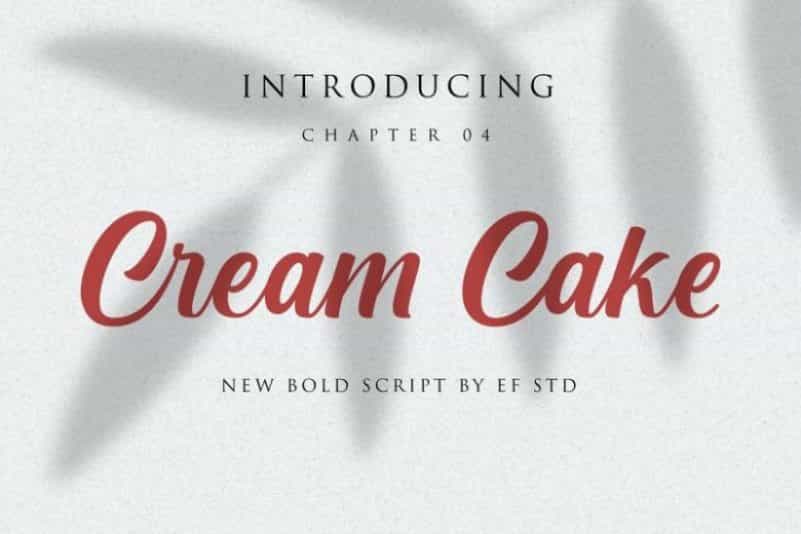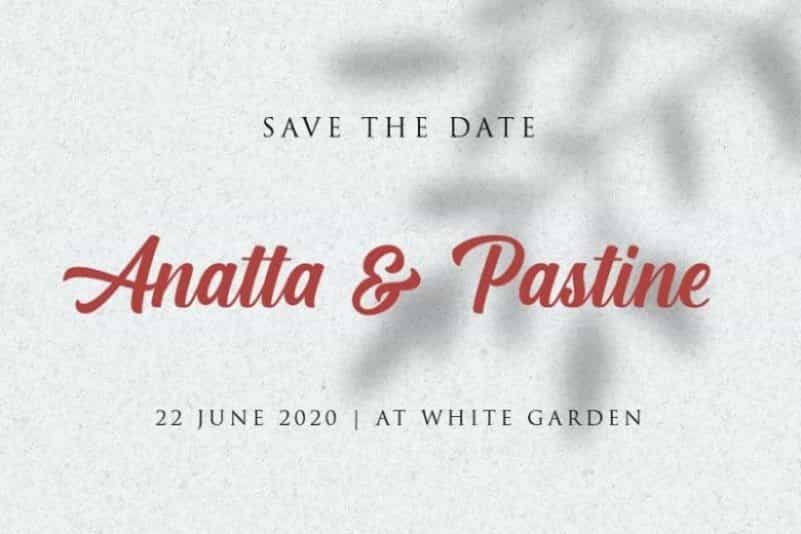
The new styles of Cream Cake font are introduced to which the modern hand scratches are applied. I hope this font will be suitable for you and can be easily and simply used for your work because it has a lot of features, containing a complete set of lower and upper case letters, matched punctuation and numbers and multilingual support.